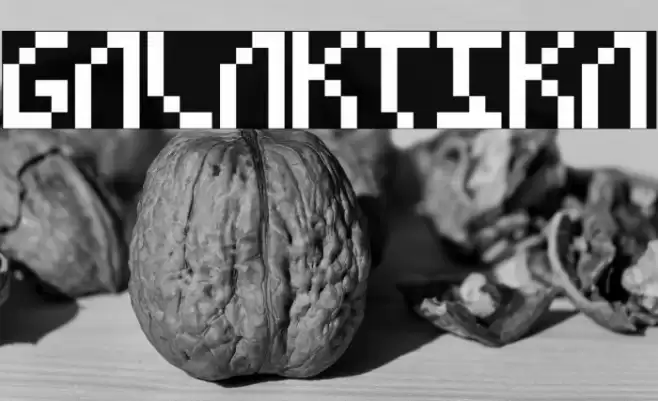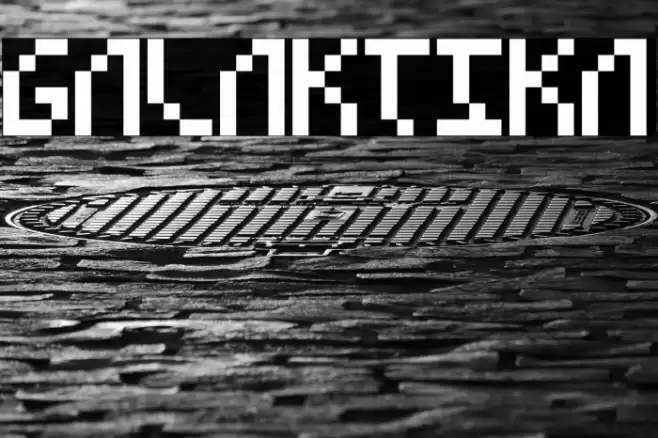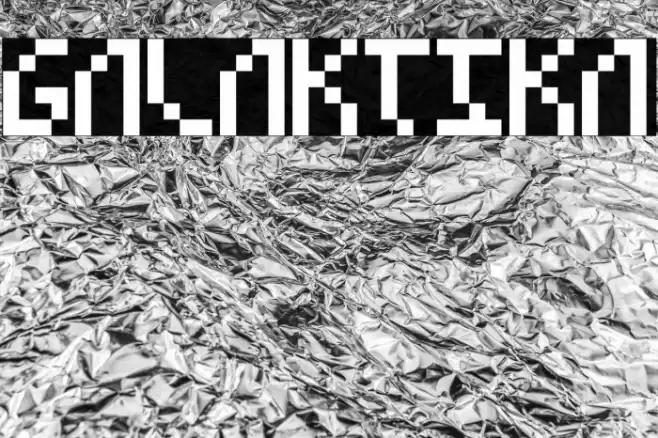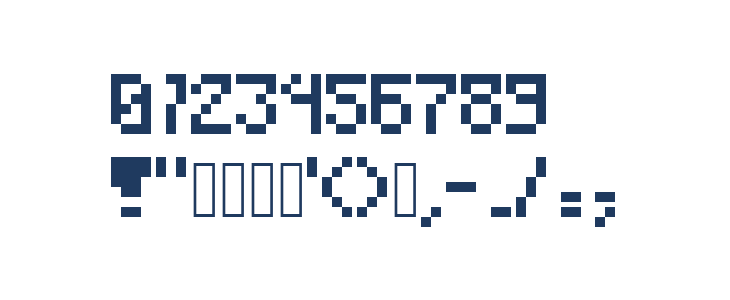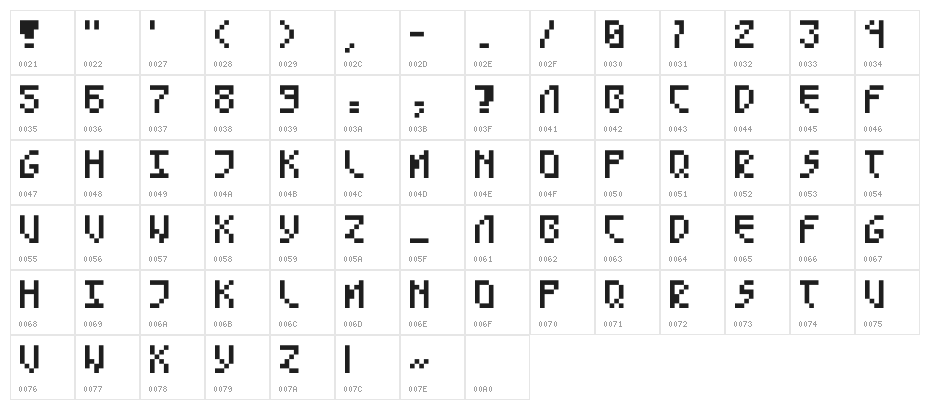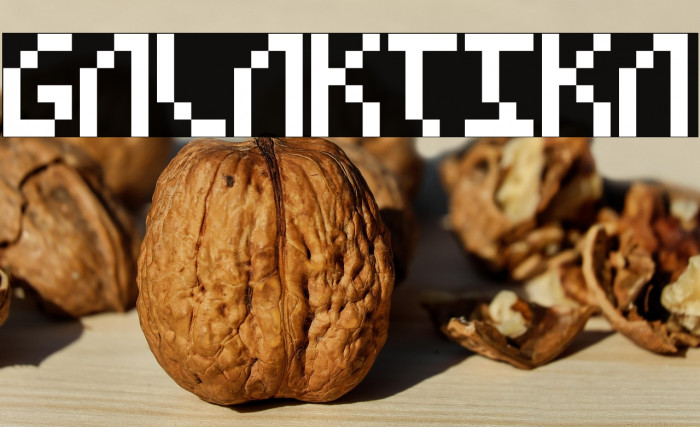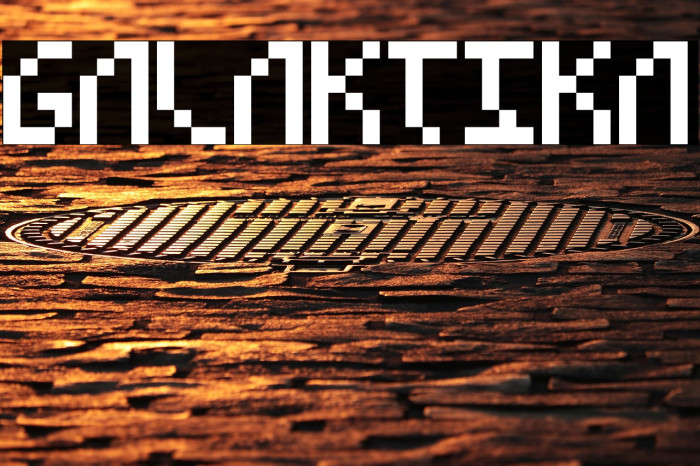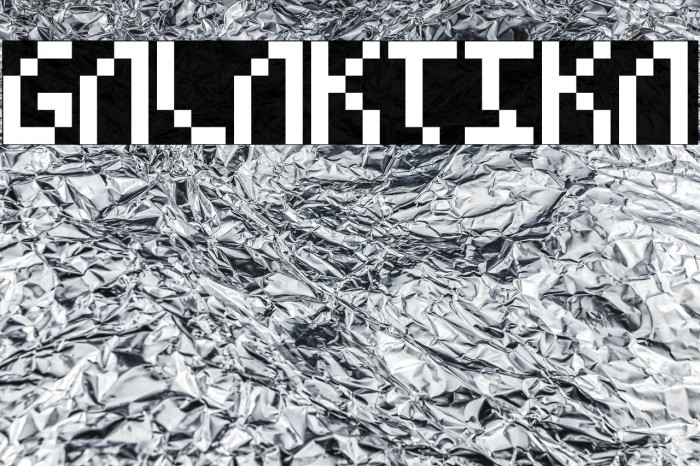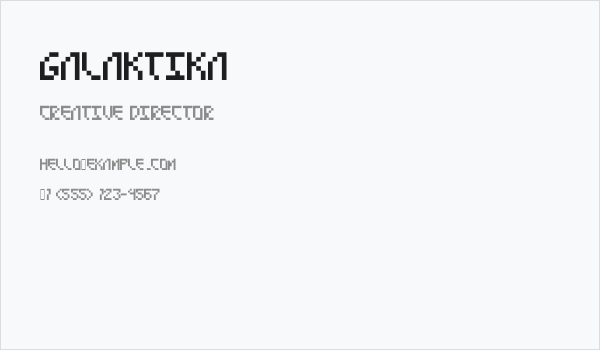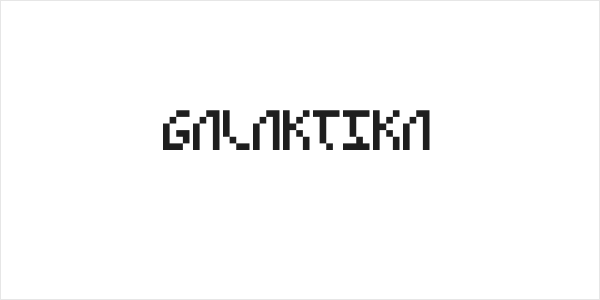
GALAKTIKA Font
GALAKTIKA Description
This font features a pixelated, blocky design reminiscent of early digital displays and retro video games. Each character is composed of a grid-like structure, giving it a distinctly digital and geometric appearance. The uppercase and lowercase letters maintain a consistent height, emphasizing uniformity and simplicity. The numerals and special characters follow the same pixelated style, ensuring a cohesive look across all glyphs. This font's nostalgic aesthetic is perfect for projects that aim to evoke a sense of vintage technology or digital art. Its straightforward, bold lines make it highly legible even at smaller sizes.
A pixelated, retro-style font with a digital, blocky appearance from Uncategorized fonts.
- Proposed Projects: Ideal for retro video game designs, digital art projects, tech-themed posters, and nostalgic branding.
- Overall Style: Retro, Digital